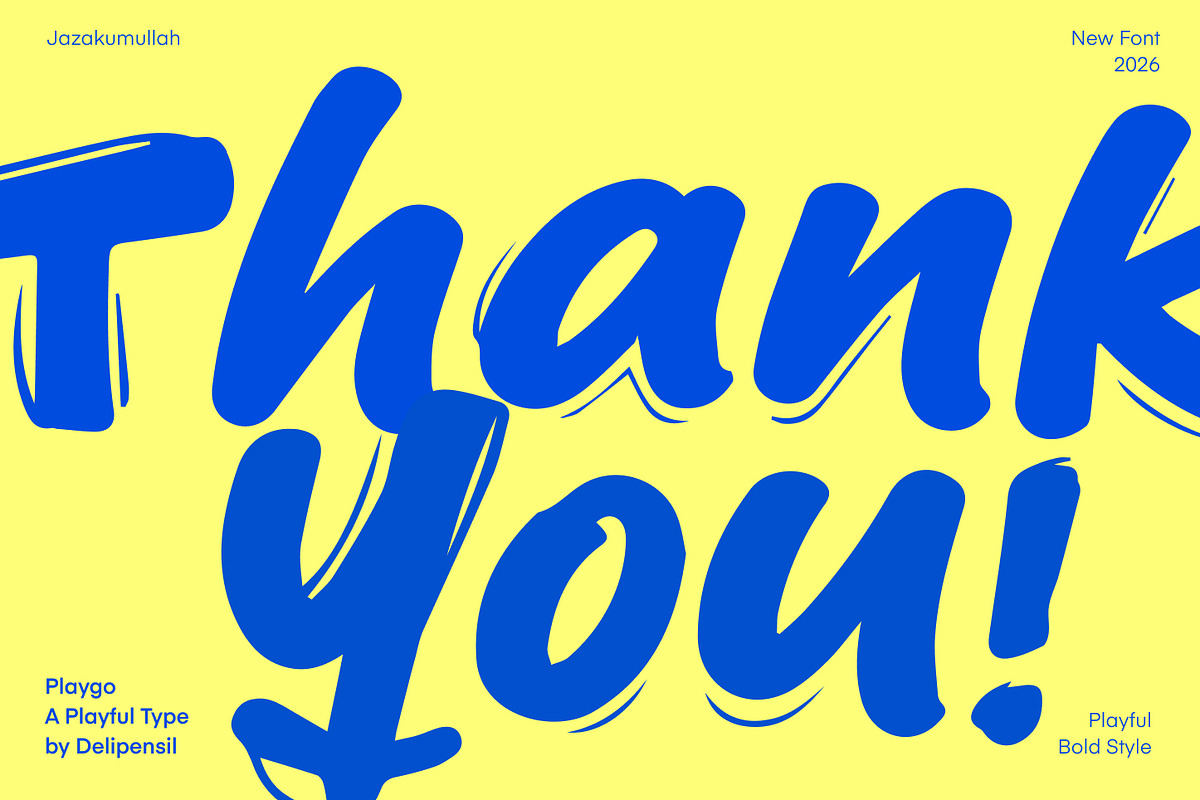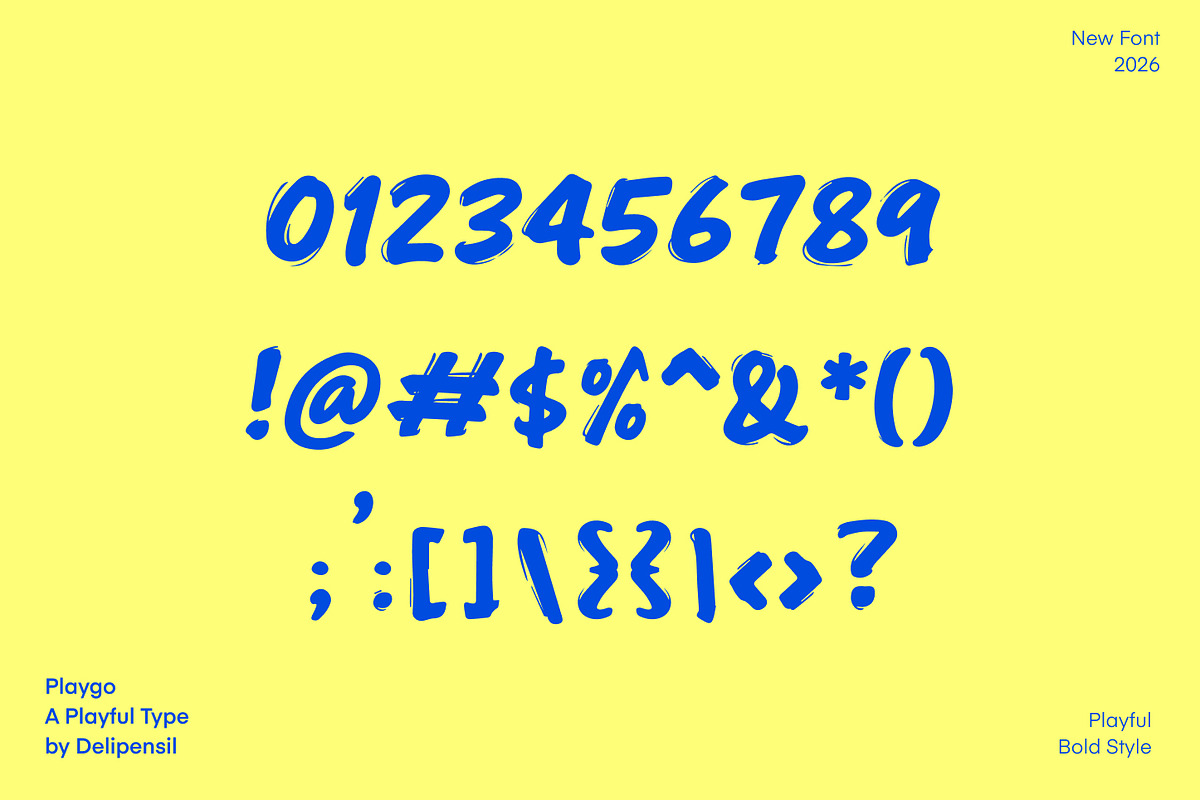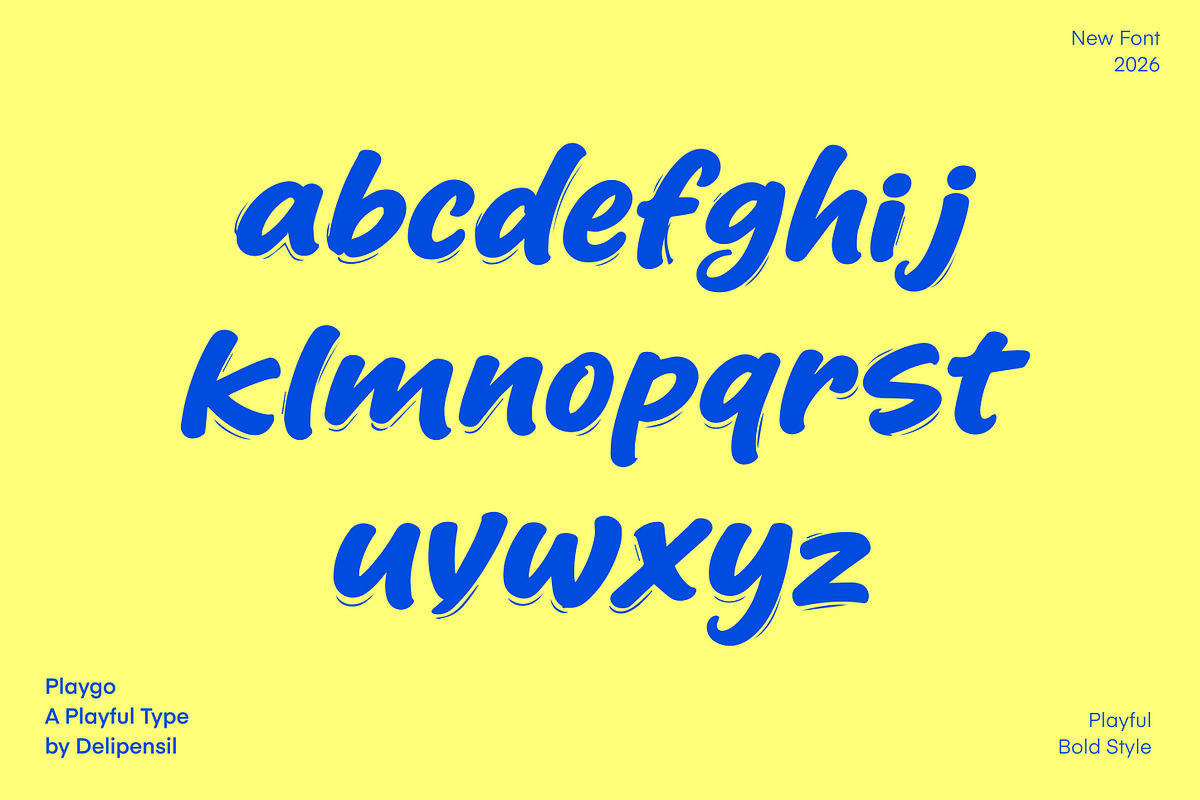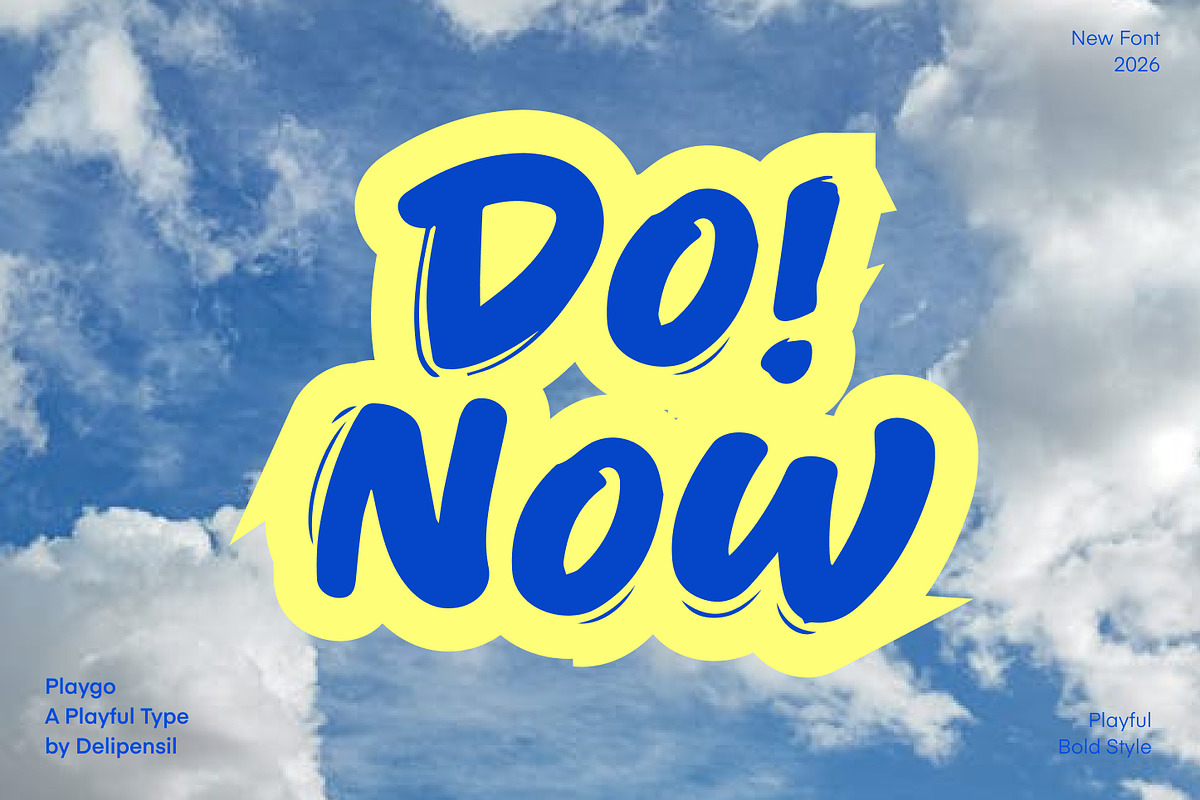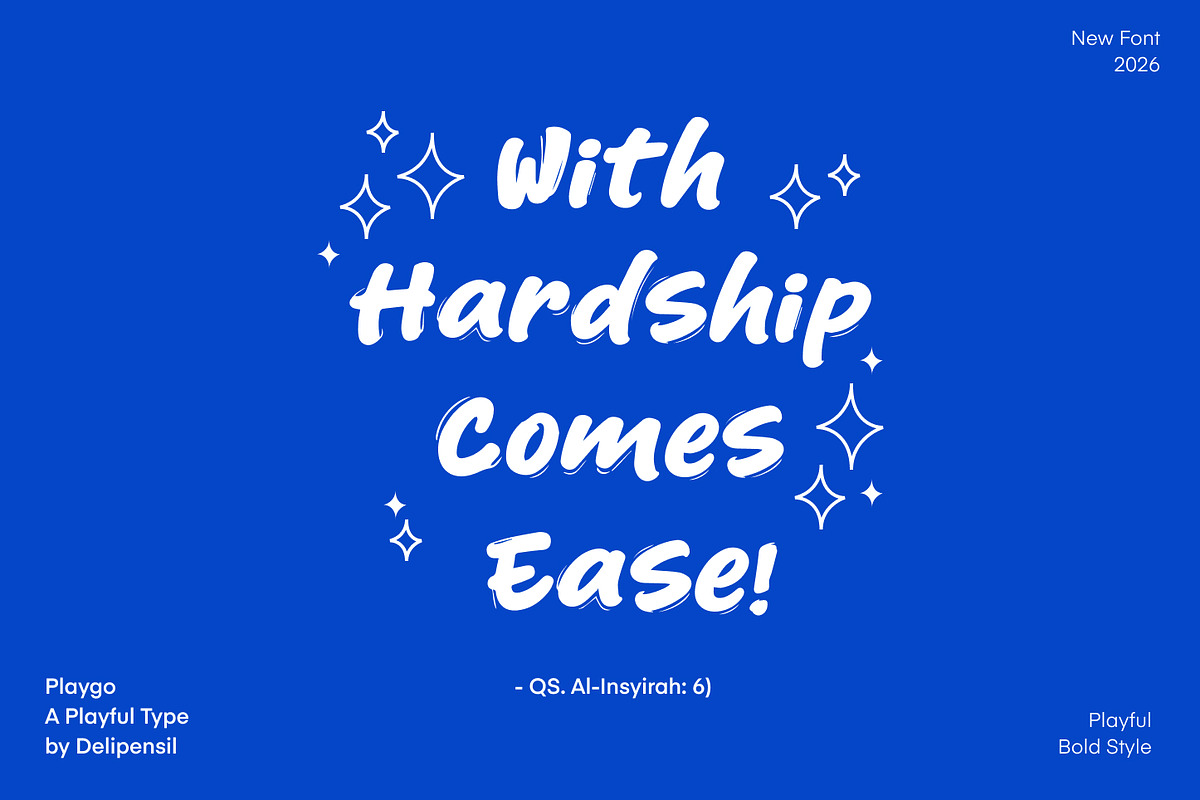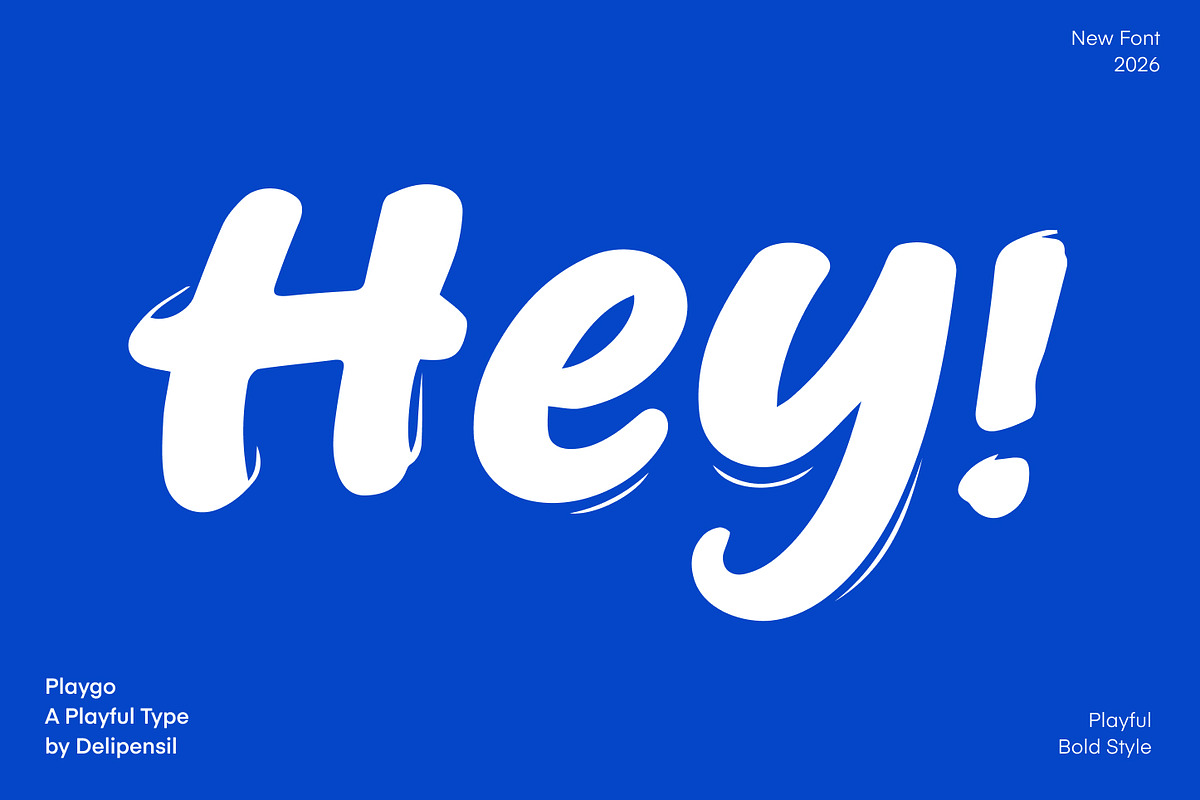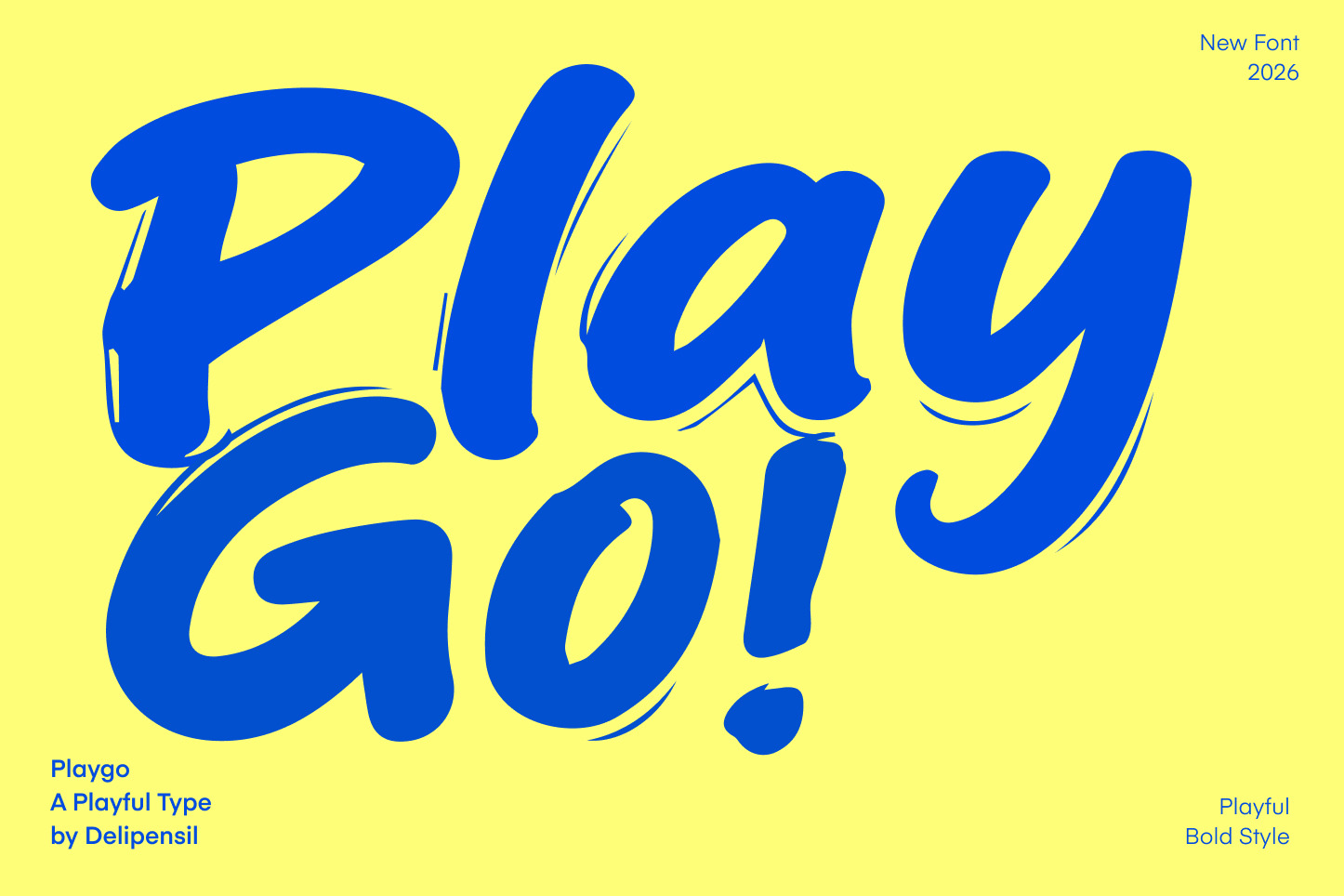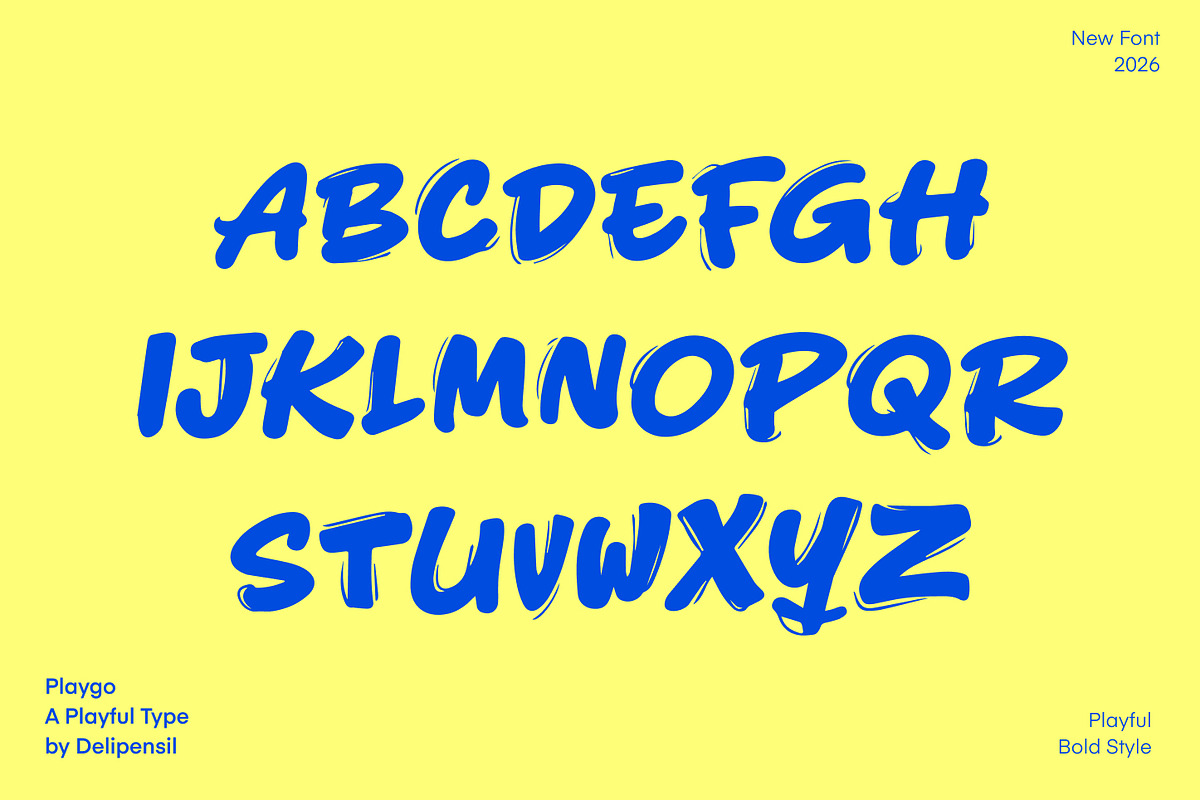
Playgo - Bold Playful Display Font
Playgo – Bold Playful Display Font
Bismillah, Introduction Playgo is a bold, playful display font with a hand-drawn brush style that brings fun, energy, and personality to your designs. Designed to stand out, Playgo is perfect for projects that need a strong visual impact while staying friendly and approachable.
With thick strokes and dynamic letterforms, Playgo works beautifully for branding, posters, packaging, social media, kids projects, and creative headlines.
- Playgo Uppercase
- Playgo Lowercase
✨ Perfect for:
- Branding & logo design
- Posters & headlines
- Social media graphics
- Kids & playful designs
- Packaging & merchandise
- Quotes & creative layouts